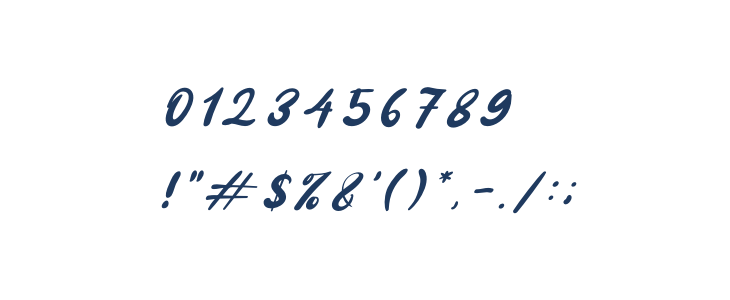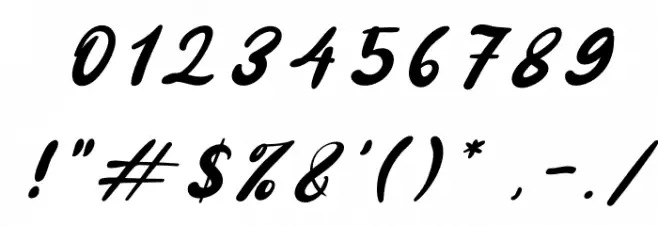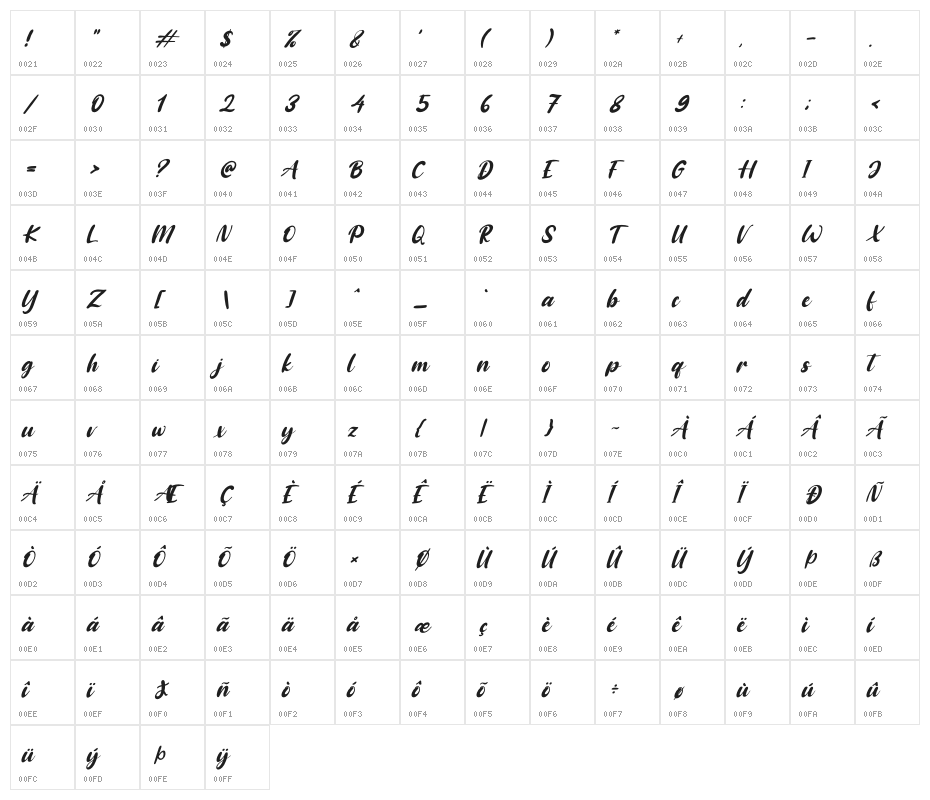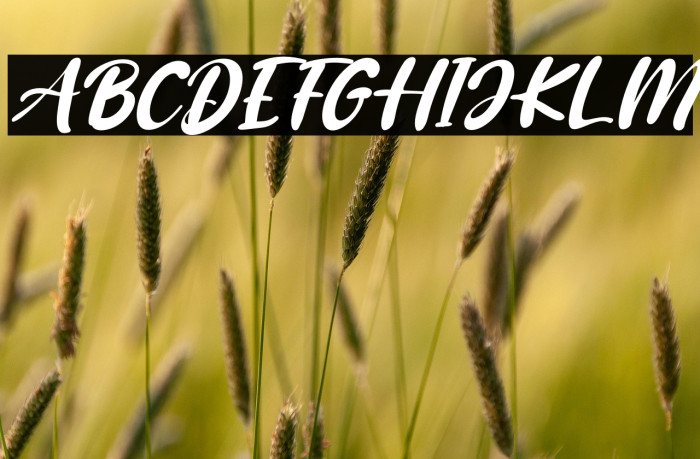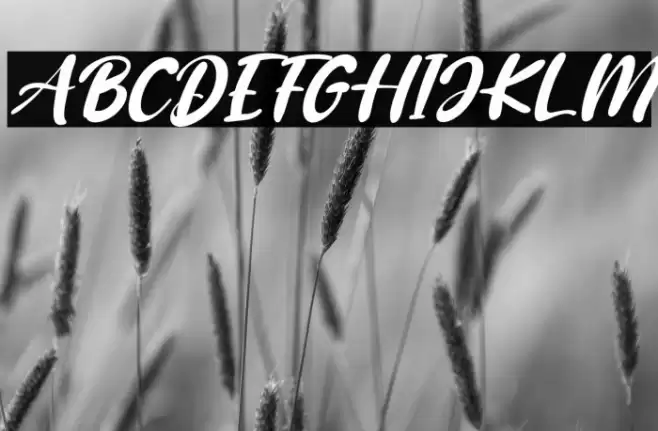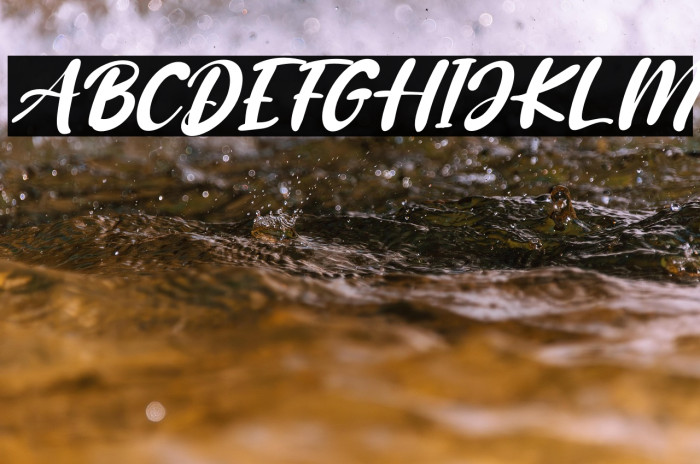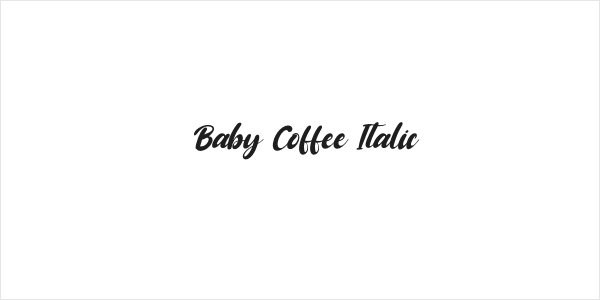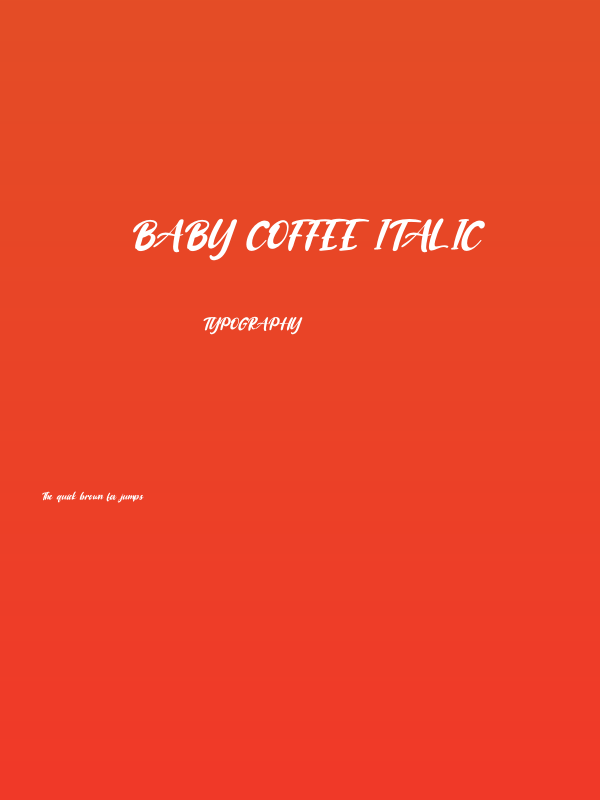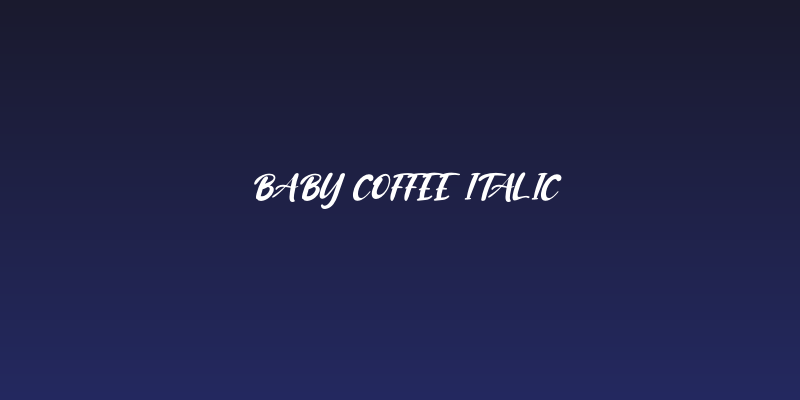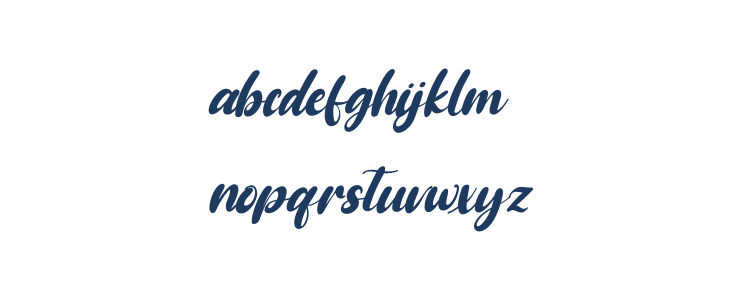
Baby Coffee Italic Font
Baby Coffee Italic Description
This font exudes a playful and energetic vibe, characterized by its flowing, cursive style. The letters are connected in a smooth, continuous manner, giving it a handwritten appearance. The strokes are bold and slightly slanted, enhancing its dynamic and lively feel. The uppercase letters are elegantly crafted with sweeping curves, while the lowercase letters maintain a consistent rhythm and flow. The numbers and special characters are designed to complement the overall style, ensuring uniformity across all glyphs. This font is ideal for projects that require a personal touch, such as invitations, greeting cards, or branding materials that aim to convey warmth and approachability.